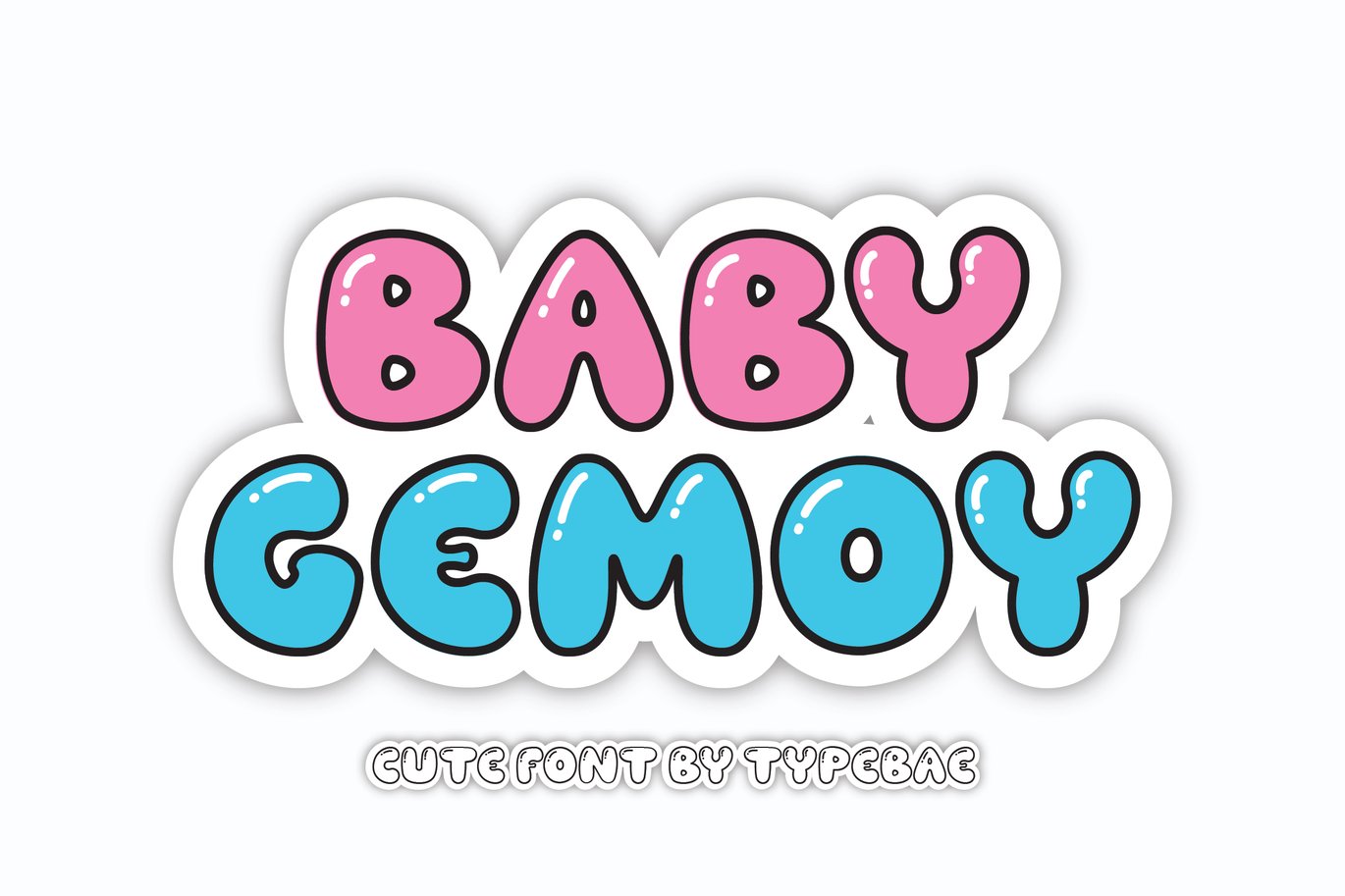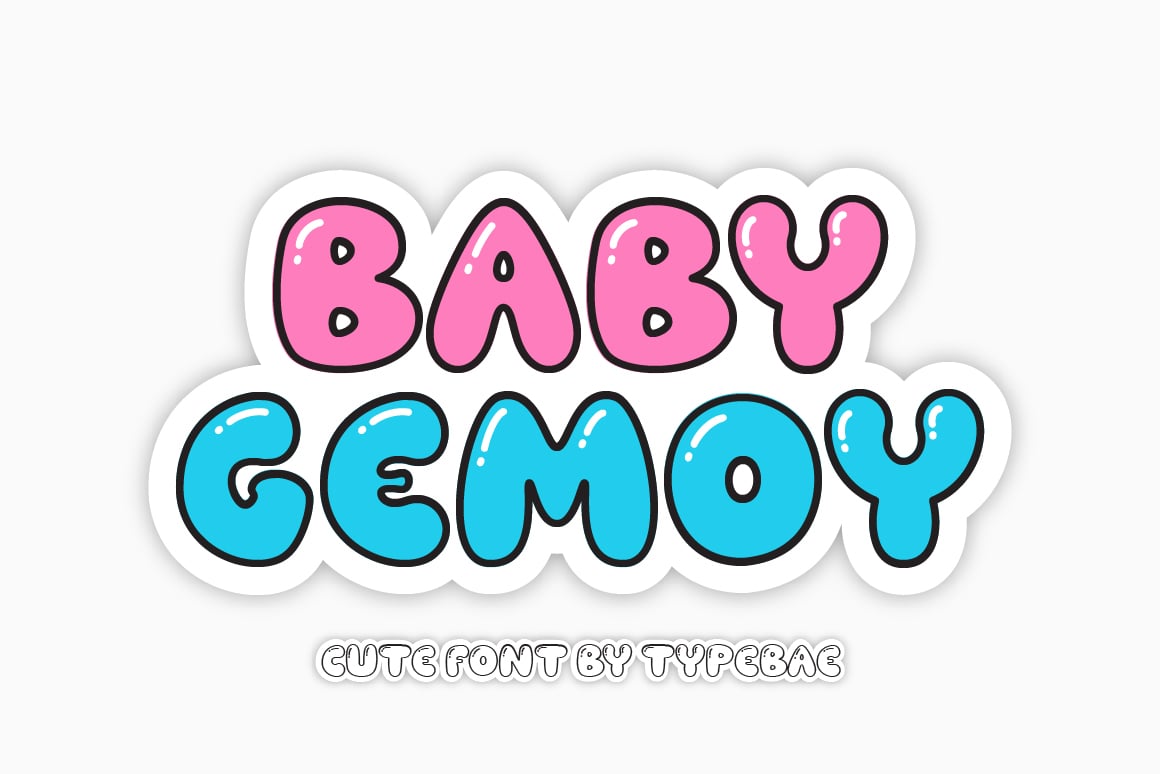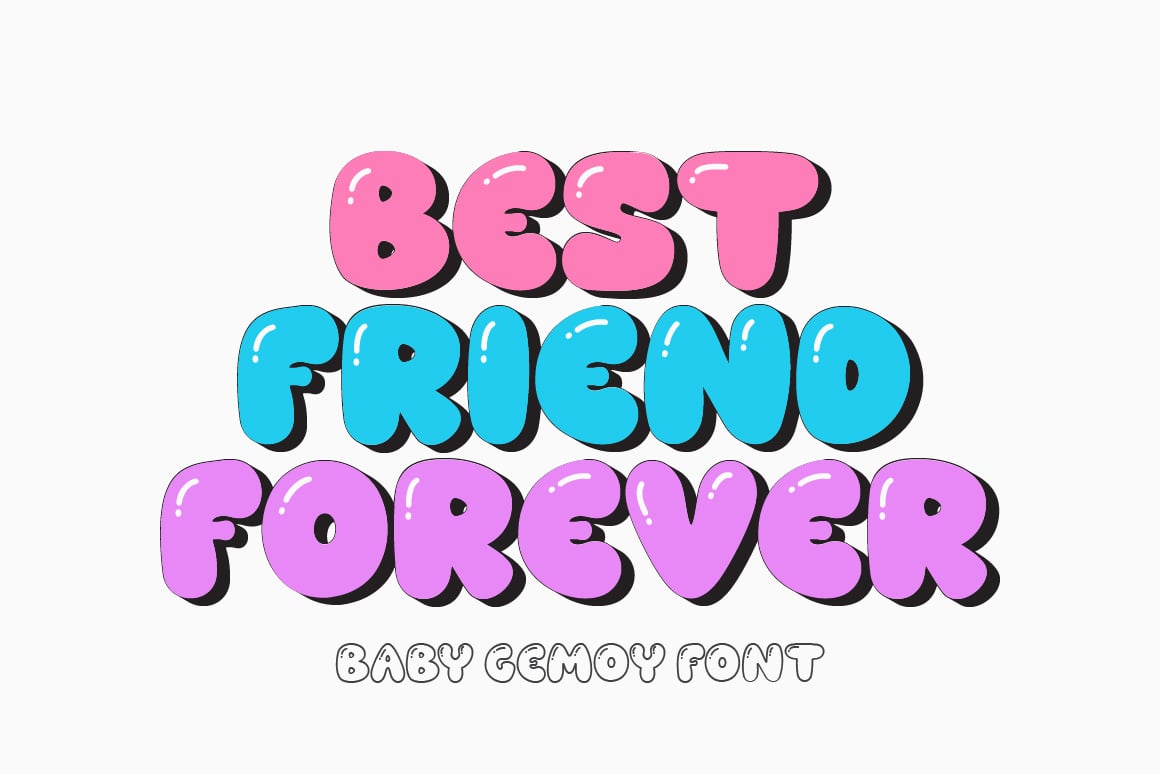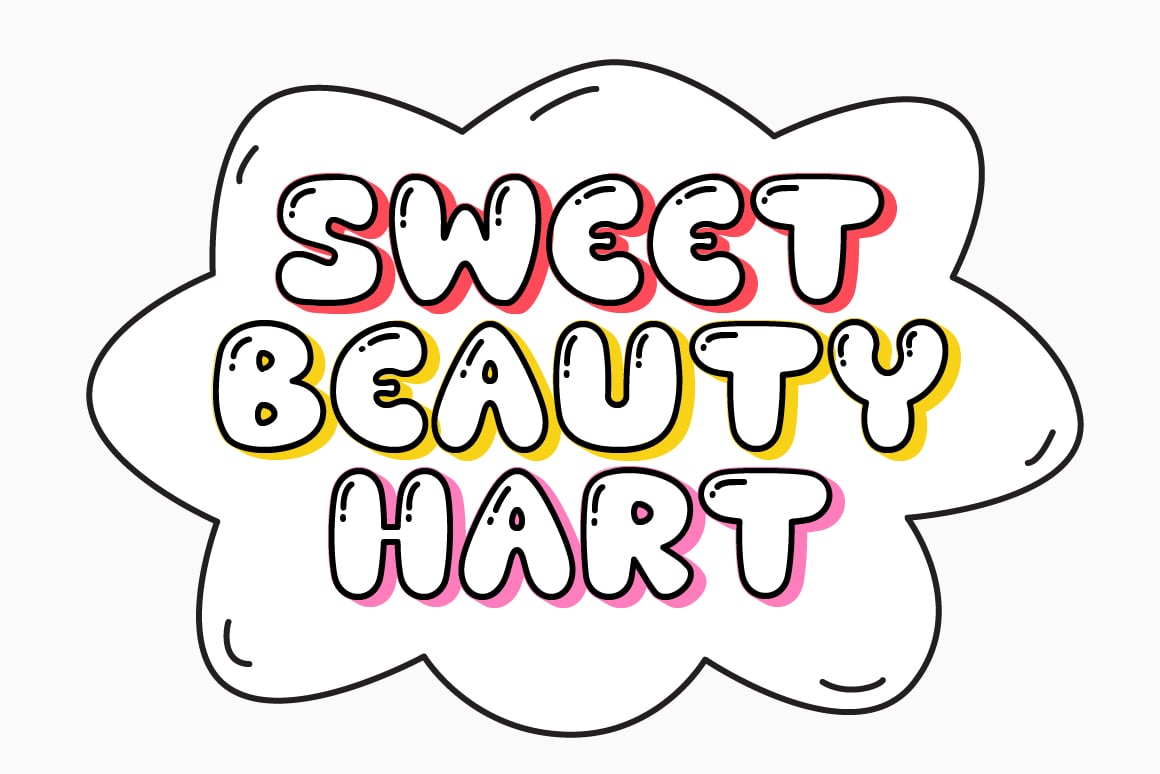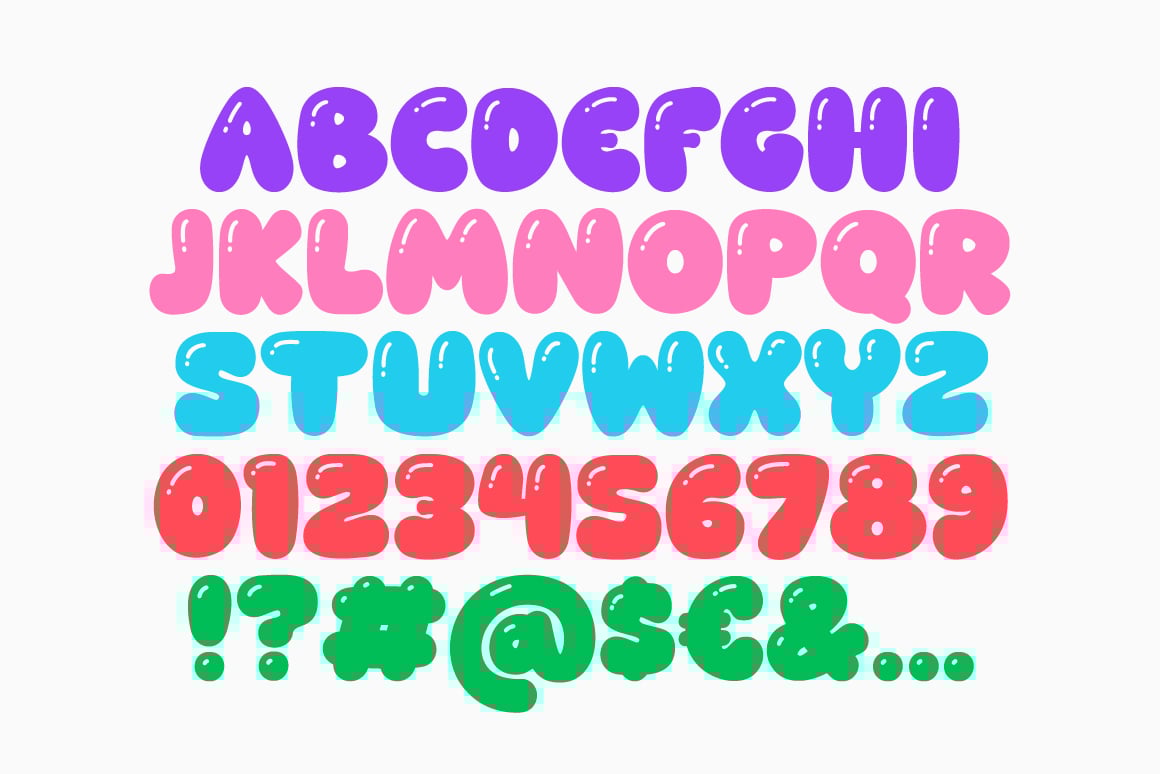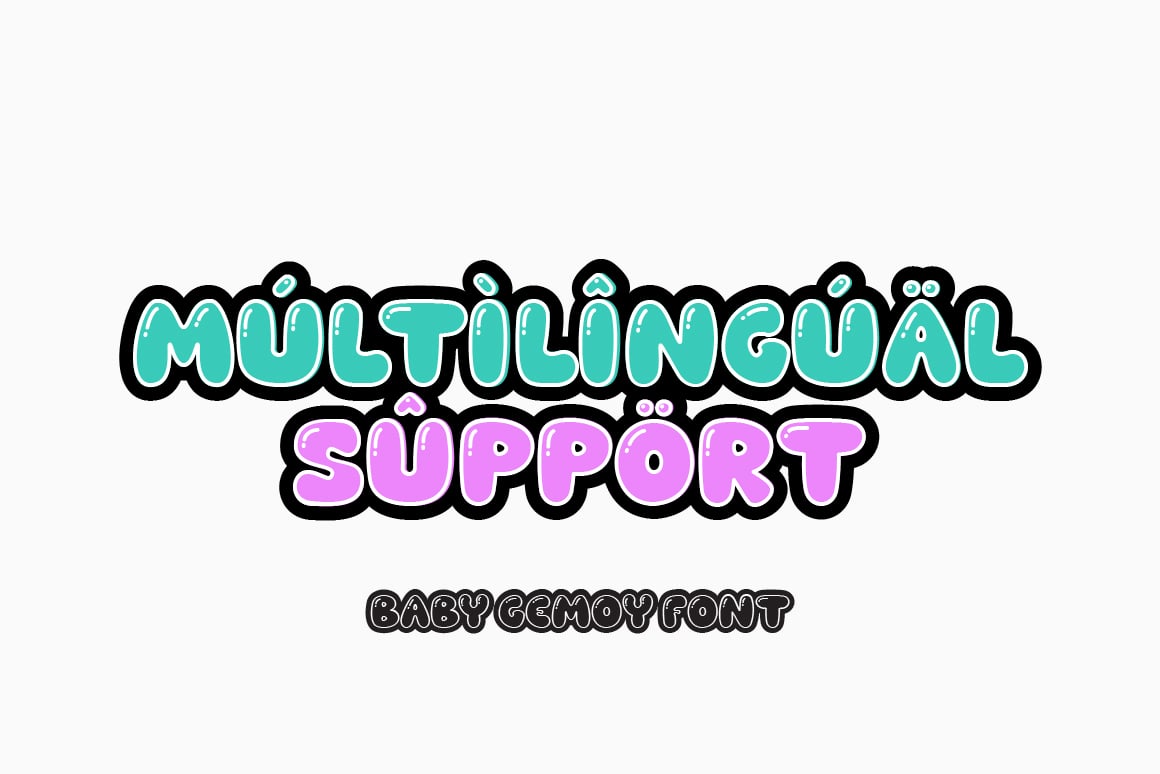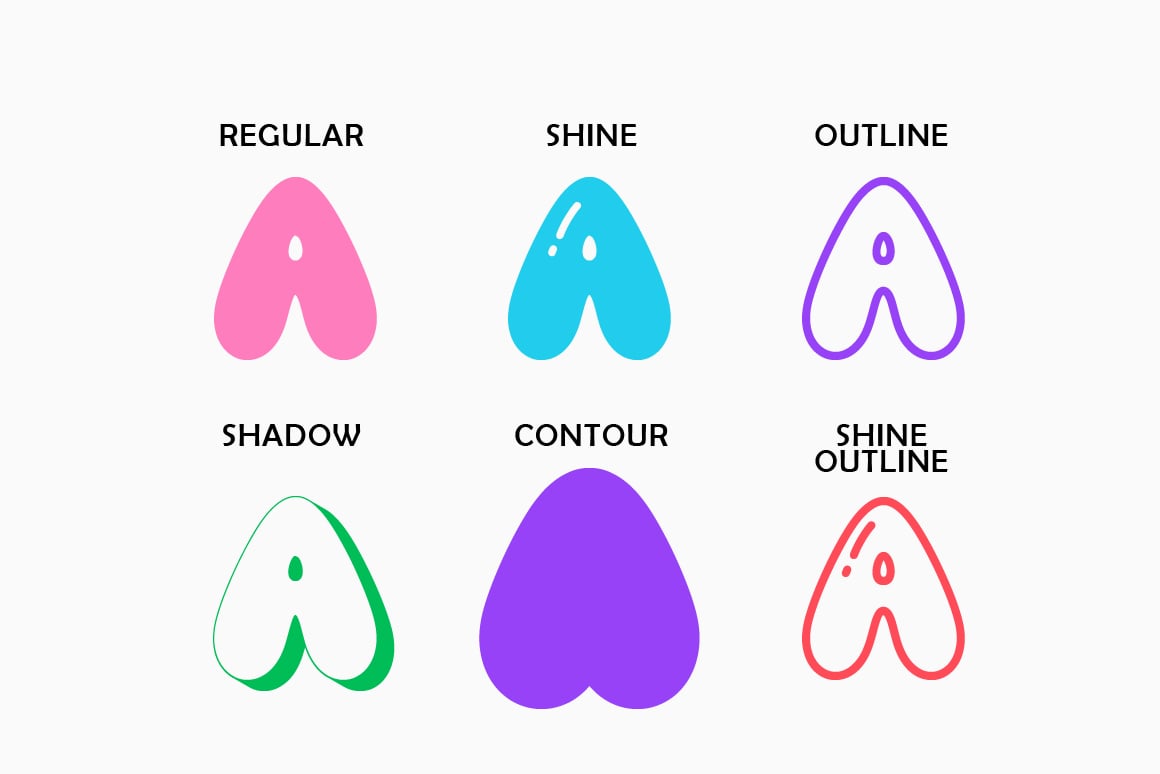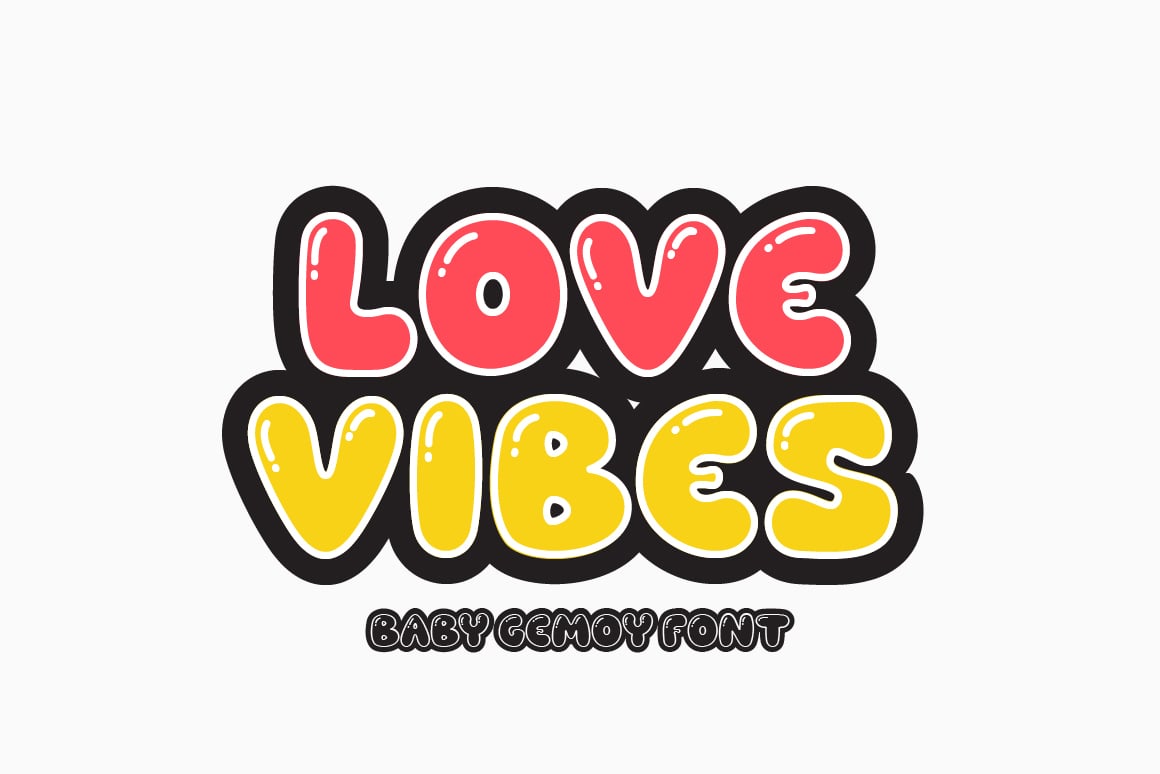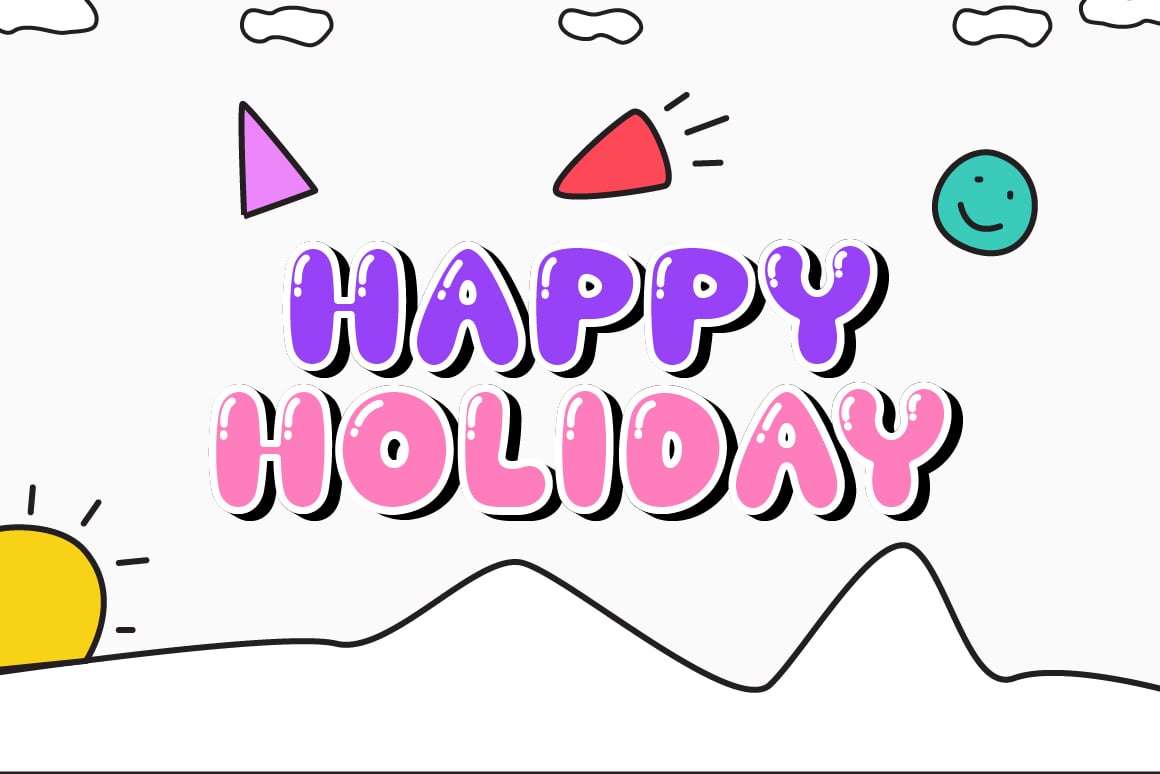
Baby Gemoy – Playful Bubble Font
Baby Gemoy is a delightfully cute bubble font that brings a playful charm to your projects. This font comes in 7 styles that produce visually appealing and cool typography.
Features: Numeral, Punctuation, Multilingual Support & Pua Unicode.